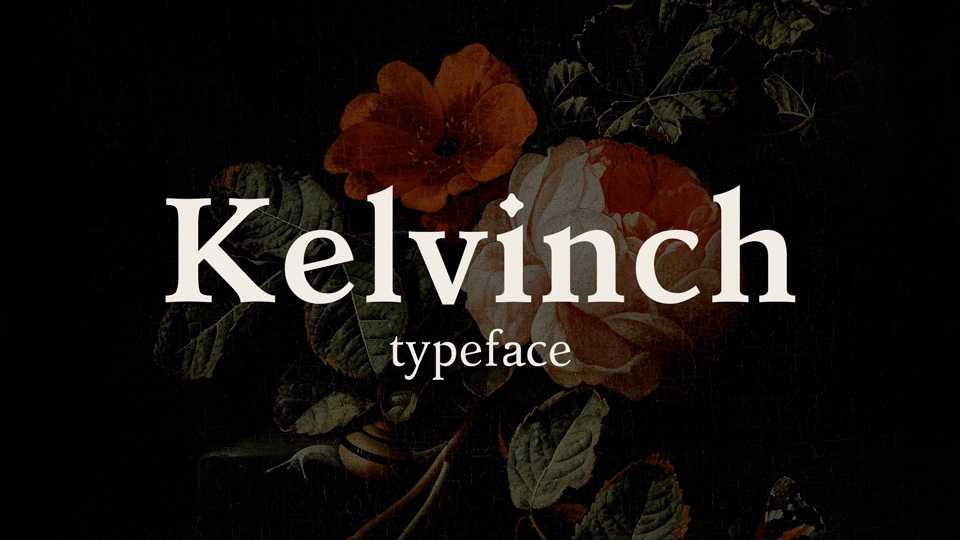
Download Kelvinch typeface, a serif font family in two weights and Italics. Kelvinch meant for body text but has the characters as aesthetically pleasing as possible without compromising its objective to be comfortable to read in long texts.
Designer: Paul James Miller